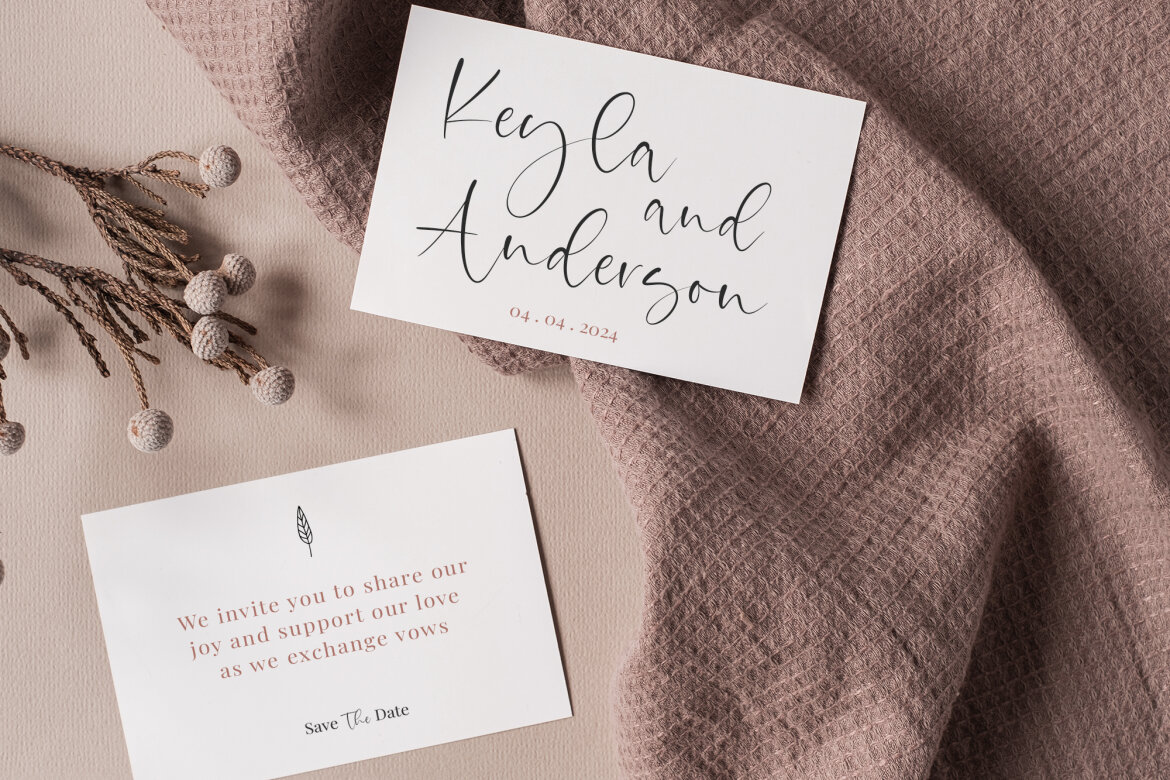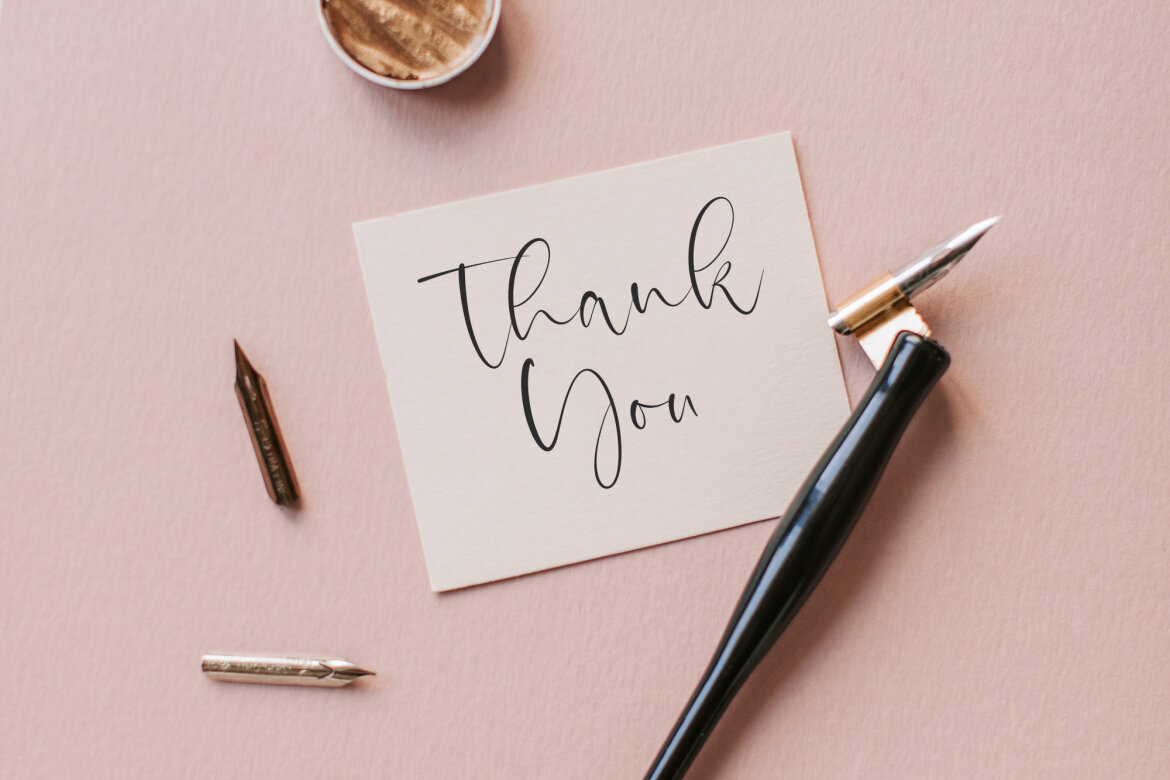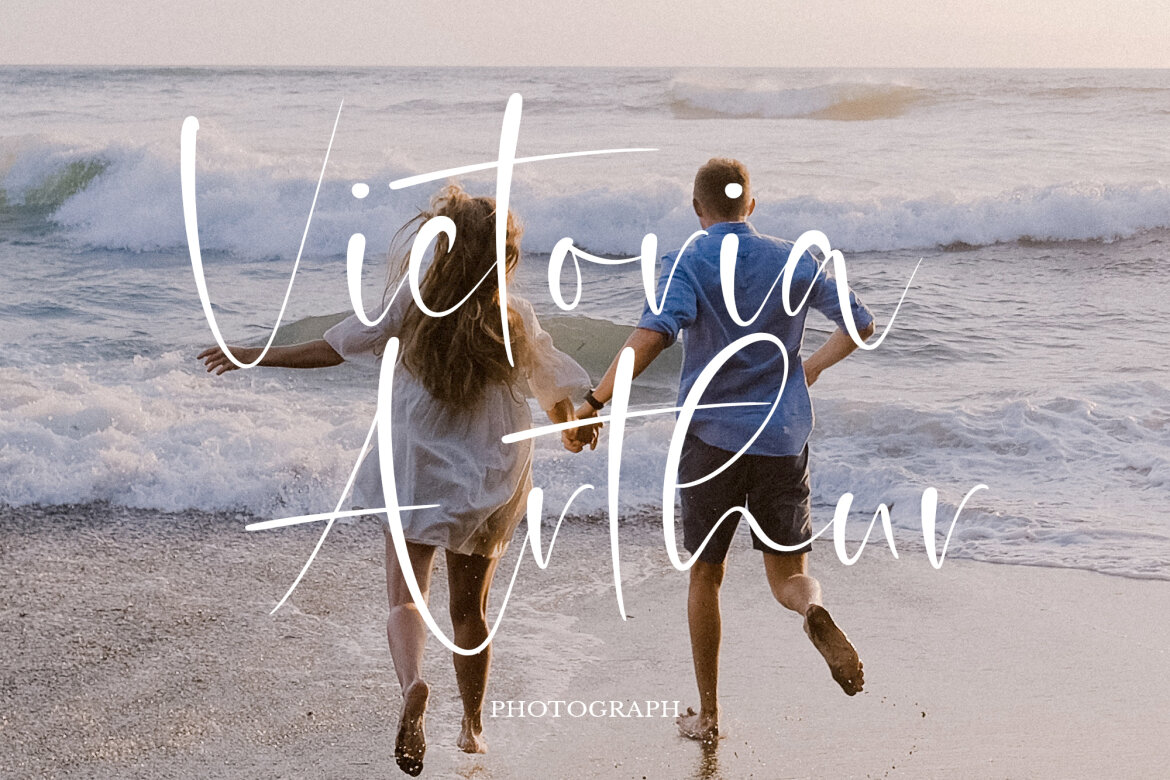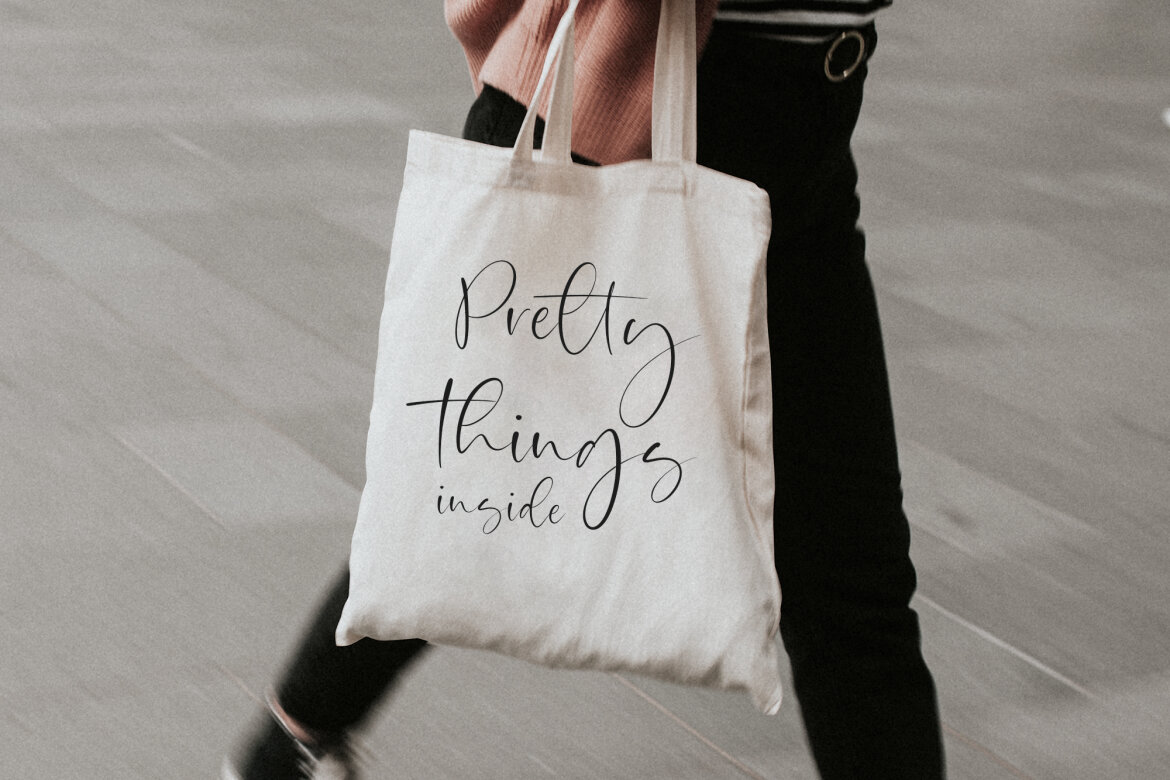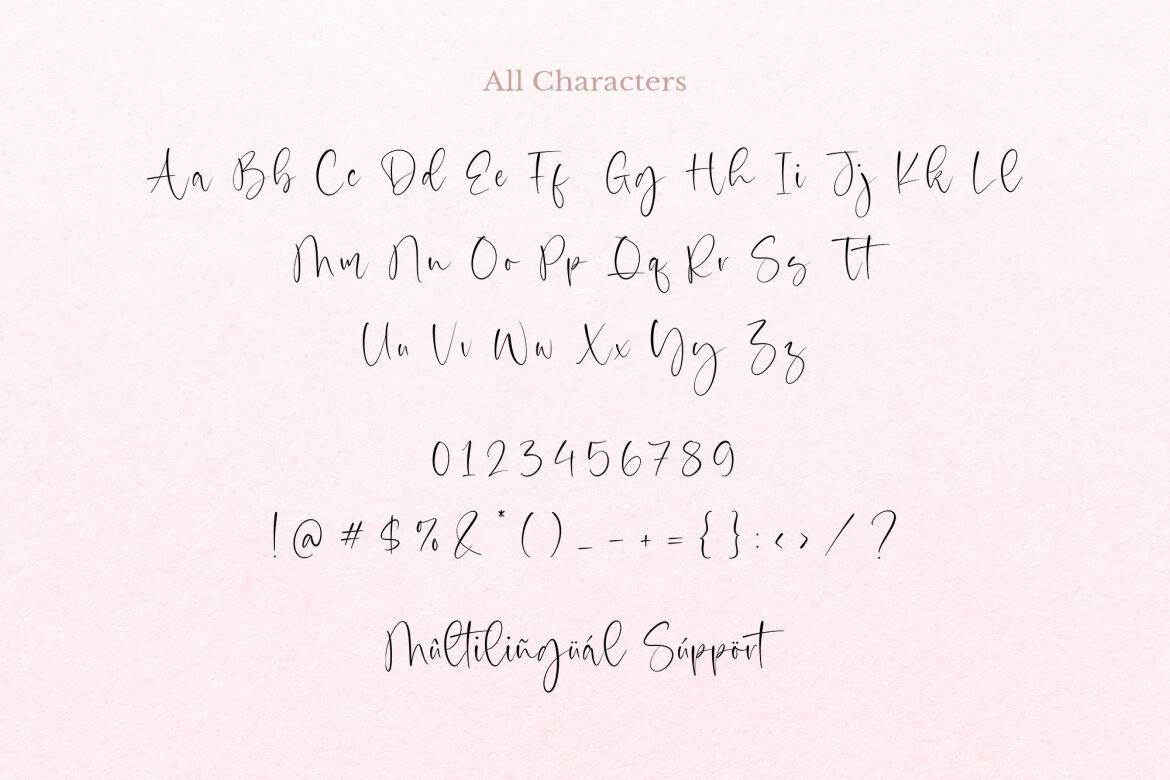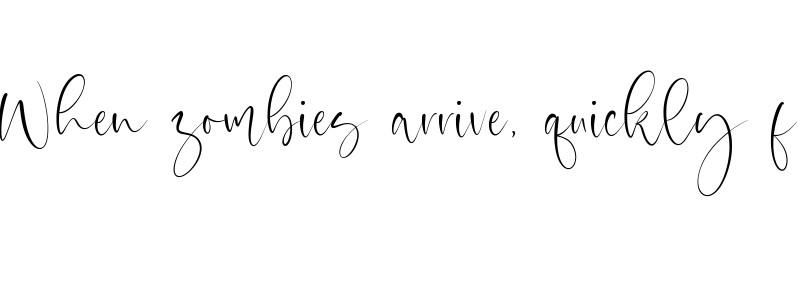
Valentine Beauty
Valentine Beauty is a Handwritten Script Font, which was created with great care and specially created for you .
Valentine Beauty is best for:
• logos, branding, & Signatures.
• Flyers, Album cover, Magazine, & Advertisements.
• Website design , design blogs, & fashion.
• Quote graphics for social media.
• and also it works great for other projects.
• Numerals and Punctuation (OpenType Standard
• Accents (Multilingual characters)